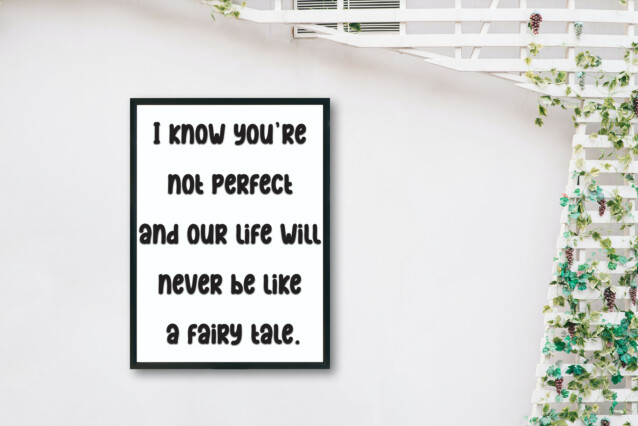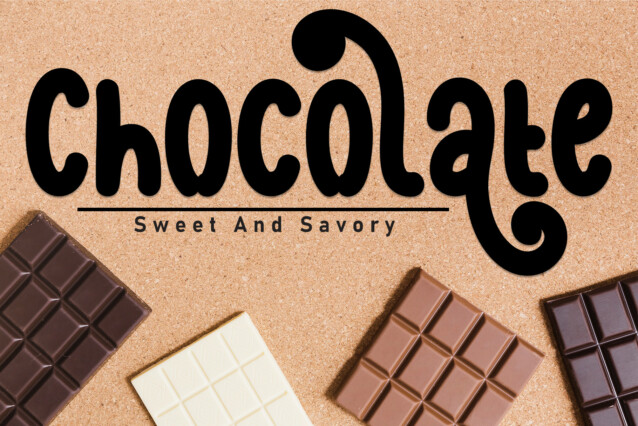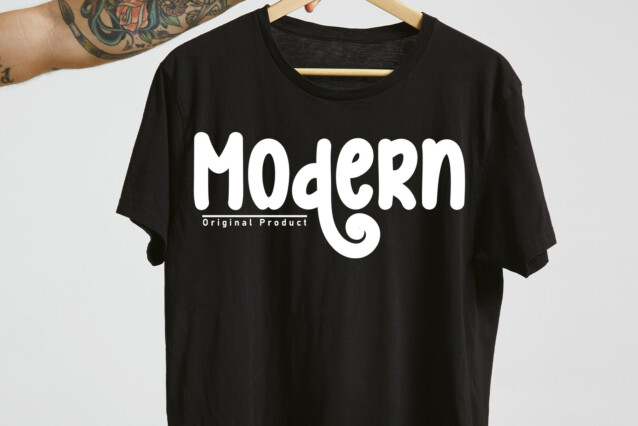
Material Display Font
Material Display Font is a unique and elegant font. Looks great on wedding invitations, greeting cards, billboards, logos, business cards, and any other design that requires a handwritten touch. This font features varied baseline, created with a natural, hand-made touch. So that it creates spectacular creations and will make your ideas look more real.